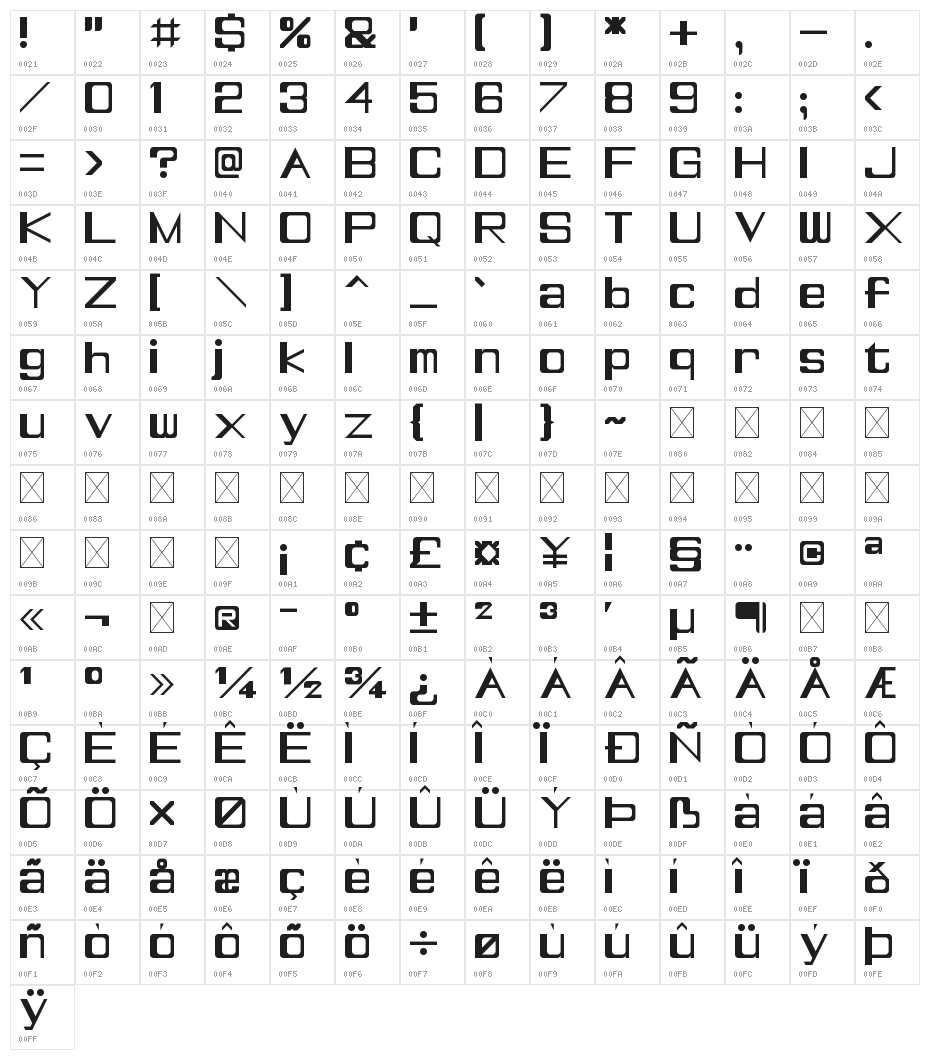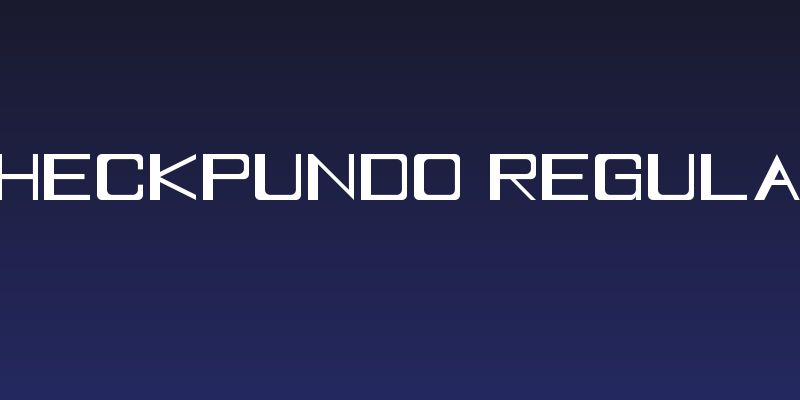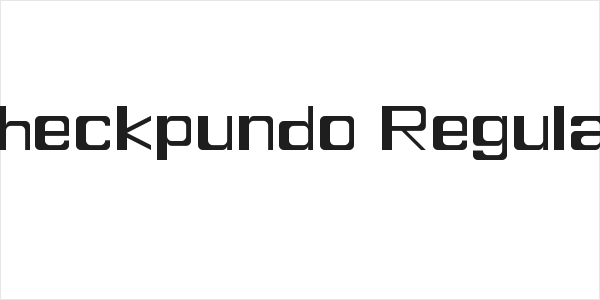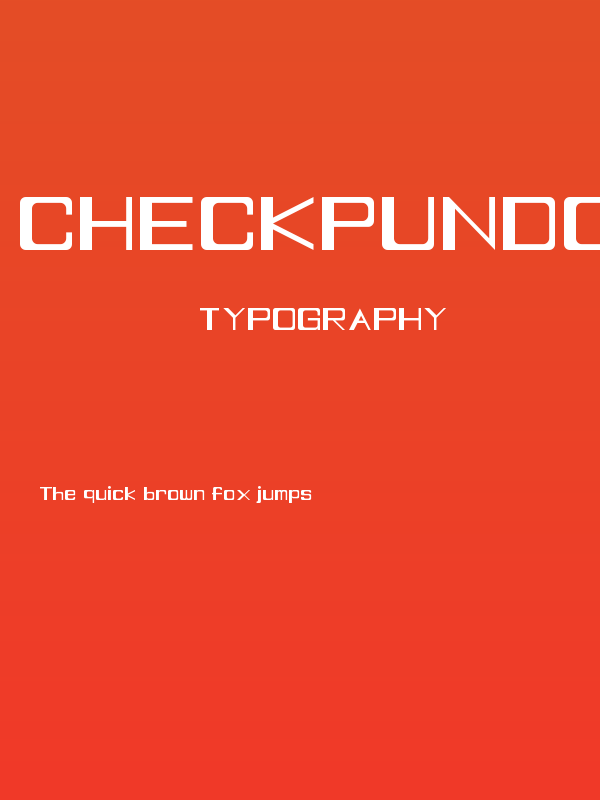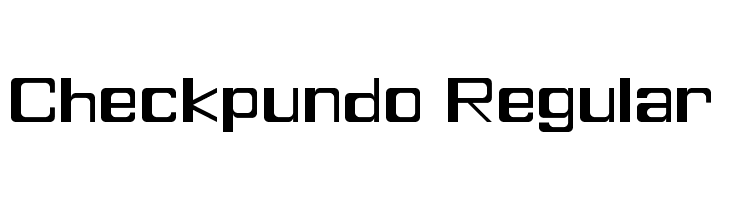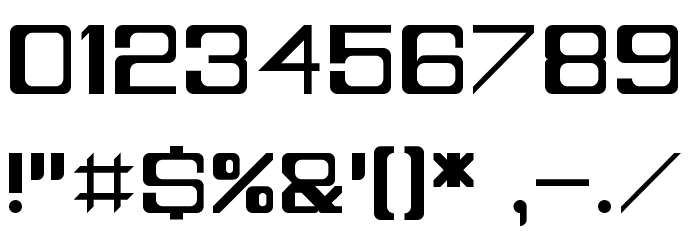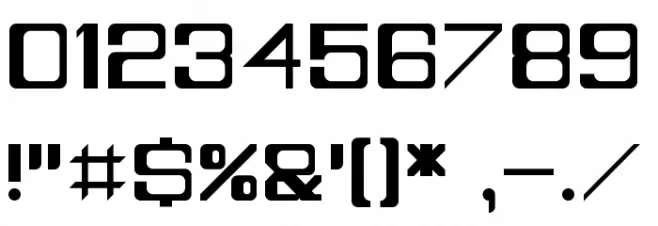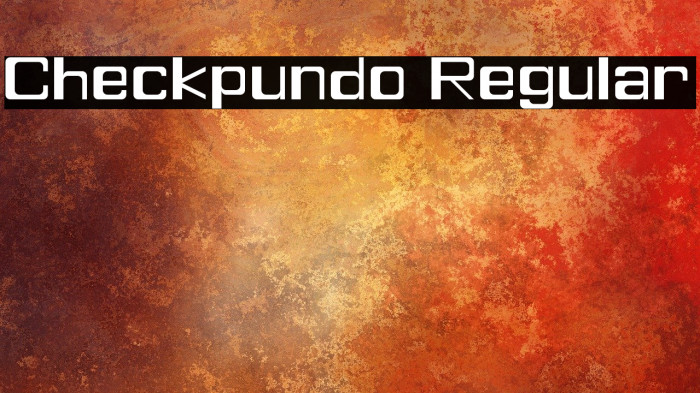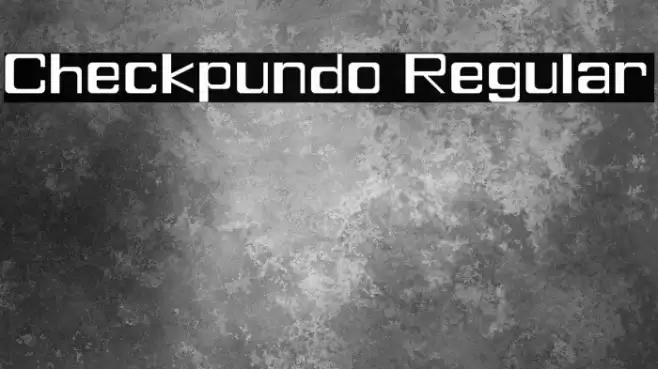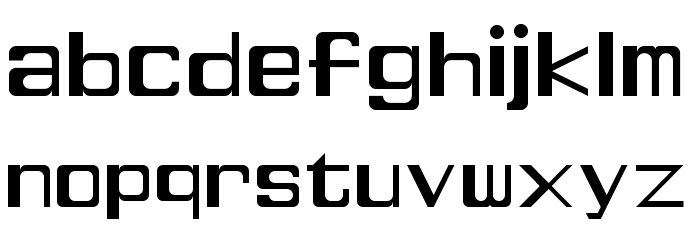
Checkpundo Regular Font
Checkpundo Regular Description
This font features a modern, geometric design with a strong, structured appearance. The uppercase letters have a distinct, angular form, while the lowercase letters maintain a consistent style with rounded edges. The numerals are bold and clear, making them easily readable. Special characters and punctuation are designed to match the overall aesthetic, providing a cohesive look. The font's clean lines and balanced proportions make it suitable for various applications, offering a contemporary feel that is both professional and stylish.
| Use Case | Headlines, Logos, Digital interfaces |
| Proposed Projects | Ideal for branding, digital interfaces, and print media where a modern and professional appearance is desired. |